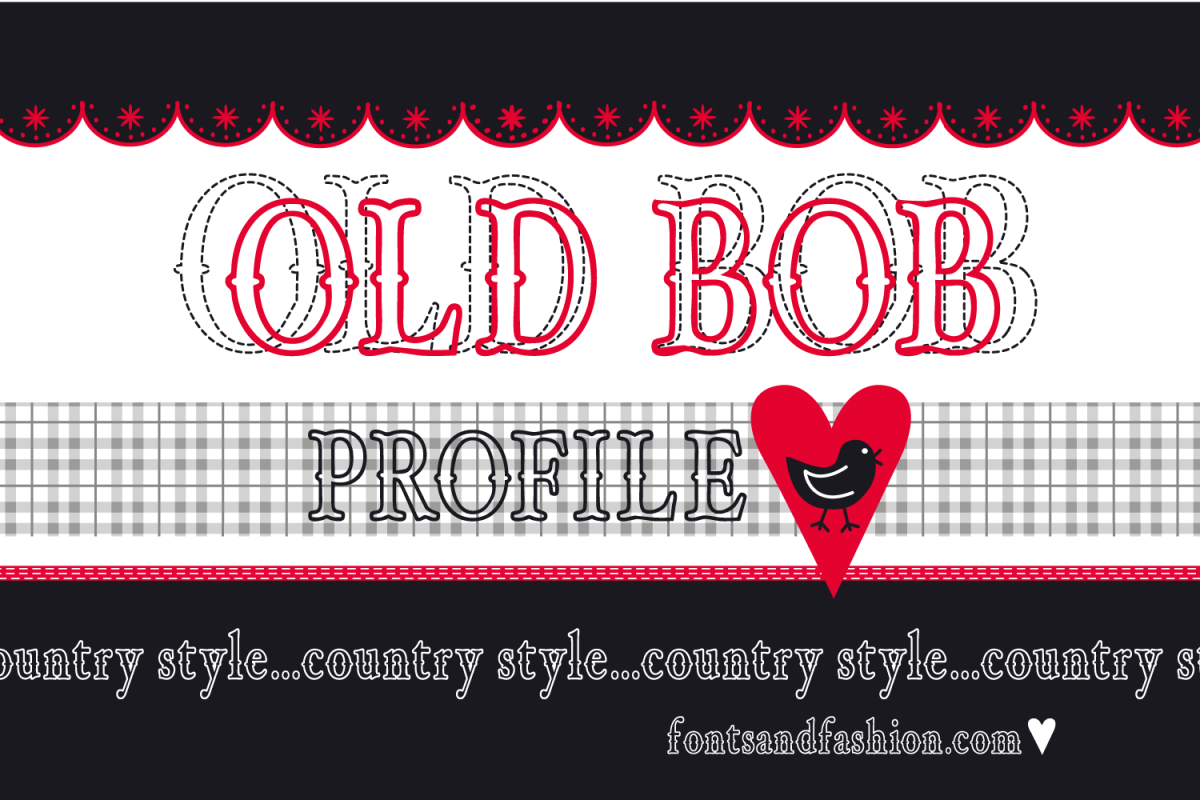
OLD BOB PROFILE
OLD BOB profile
This is a version that was created from OLD BOB basic...this variation gives life to a lettering that
allows you to take advantage of the backgroud transparency, the letters will be easy to read but will
also let the colours of the background stand out, whether drawn or decorated with patterns, they will
allow you an infinite range of possibilities for your creations...
if used alone, you will be able to take advantage of its slight transparency, but when used with the
other fonts of the same family, you will be able to let your imagination go wild, using the full and
empty shapes...By alternating full and sturdy letters to light letters that allow you to see the
background through them, you will really have a huge amount of creative possibilities...